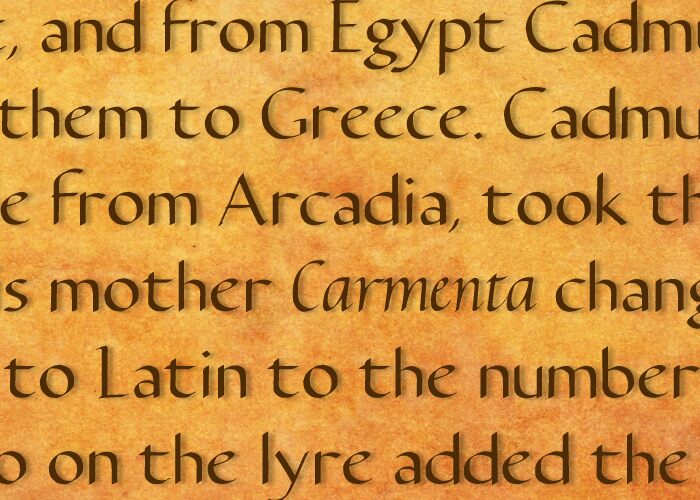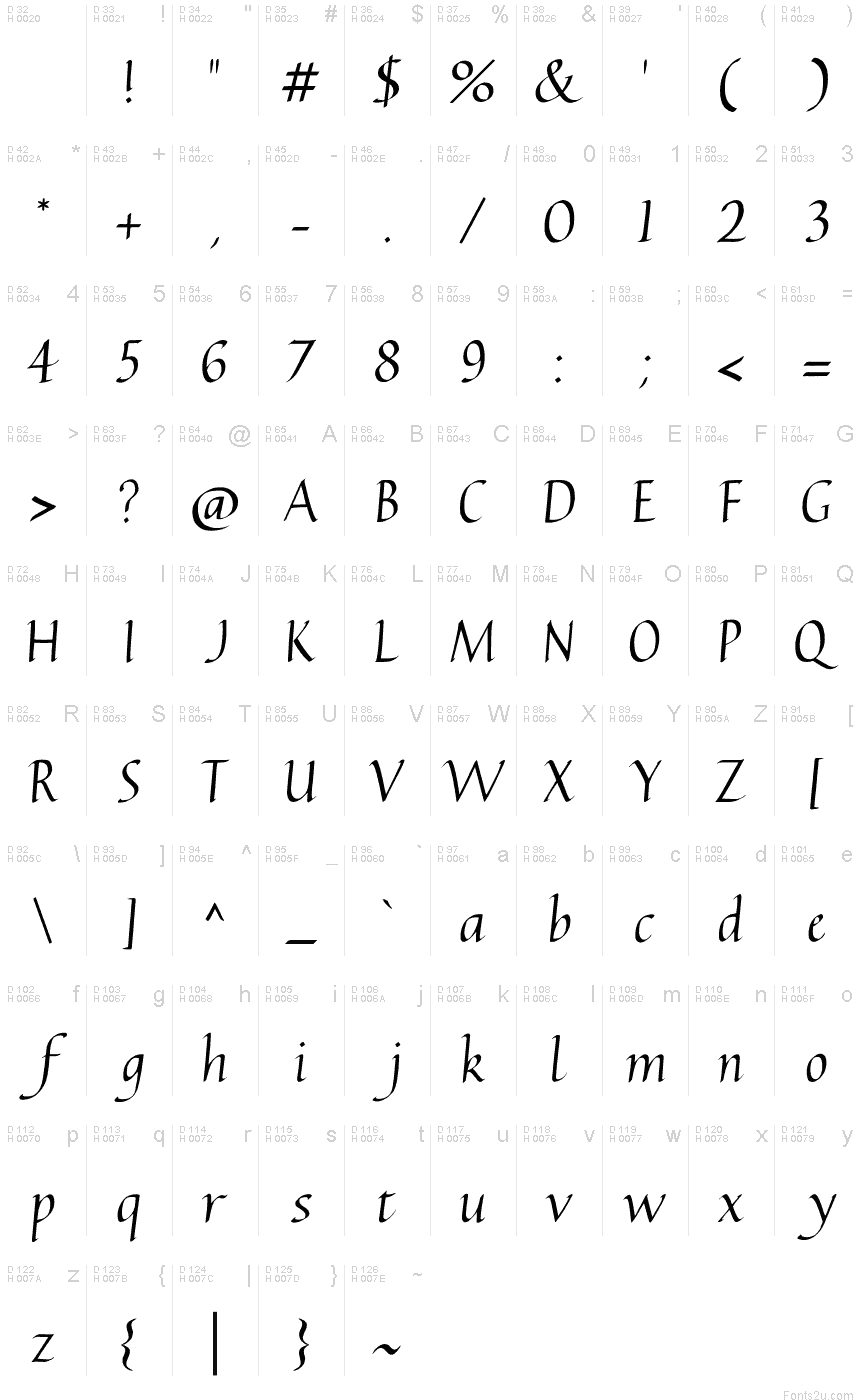
Carmenta Italic
Carmenta Italic by Rob S. of High-Logic.com is a free calligraphic script with the poised sweep of formal pen lettering. Strong thick-thin changes give the capitals a crisp, theatrical silhouette. The narrower lowercase forms lean forward, with pointed joins and long finishing strokes that keep the writing lively.
It can create an elegant title for wedding stationery, restaurant menus, or period-inspired posters, especially when the lettering itself supplies a ceremonial flourish. It best suits audiences drawn to traditional decorative craft.
The typeface is named after Carmenta, the Roman goddess of childbirth and prophecy, who is also said to have invented the Latin alphabet.